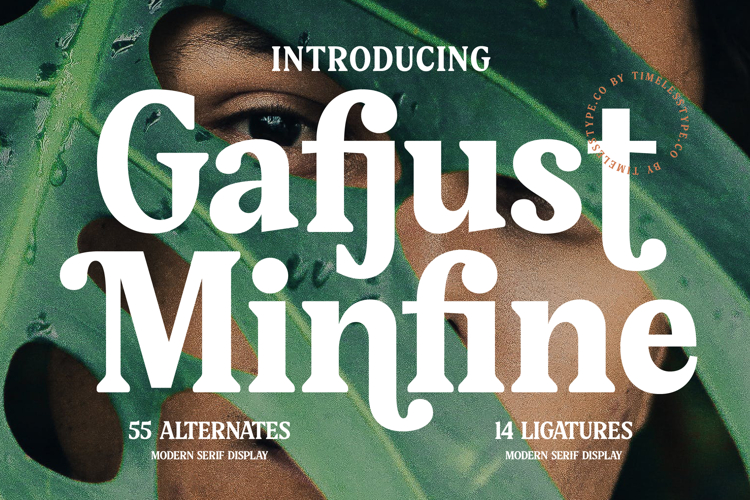
Gafjust Minfine - Modern Serif Display
Unleash unparalleled sophistication with Font Gafjust Minfine - Modern Serif Display . This exquisite modern serif marries classic elegance with contemporary flair, presenting a high-contrast display typeface designed to capture immediate attention. Its refined letterforms and assertive serifs craft a visual language that is both timeless and strikingly present, making it an essential choice for designers seeking impact and a memorable visual footprint.
Experience profound creative versatility through its meticulously crafted design. Font Gafjust Minfine - Modern Serif Display boasts an impressive collection of 55 alternates and 14 ligatures, offering extensive stylistic possibilities to customize your message. These rich typographic features allow for truly unique headline treatments and logotypes, ensuring your brand identity possesses a truly distinctive character and sets itself apart from the competition.
Expand your design horizons with inherent global reach. With its extensive multilingual support, Font Gafjust Minfine - Modern Serif Display adapts seamlessly across global markets, making it incredibly versatile for international projects. This ensures your brand resonates effectively with diverse audiences, maintaining its luxurious appeal and professionalism without compromise, wherever your vision takes you.
Perfectly suited for elevating any brand, Font Gafjust Minfine - Modern Serif Display is an indispensable asset for projects demanding a touch of prestige. It is ideal for luxury branding, captivating editorial design, high-end packaging, elegant invitations, and impactful advertising campaigns. Elevate your visual communication and leave a lasting impression with this truly remarkable and sophisticated typeface.